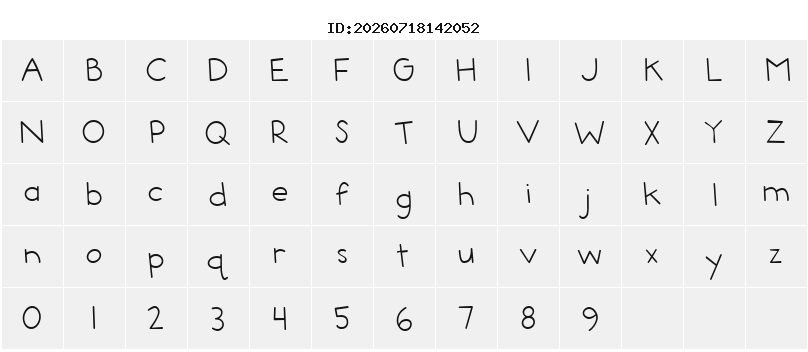
• Font Name: CK Plain Jane
About CK Plain Jane.ttf
CK Plain Jane.ttf is a modern, elegant sans-serif font designed for ultimate readability and visual harmony. Perfect for branding, headlines, web design, and print materials.